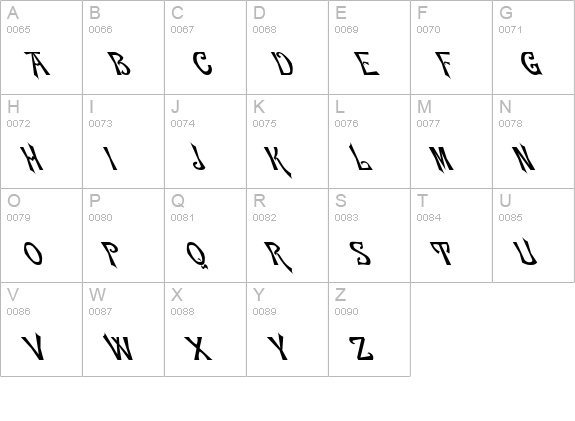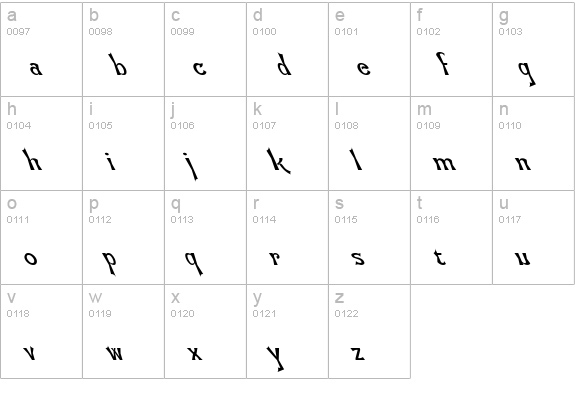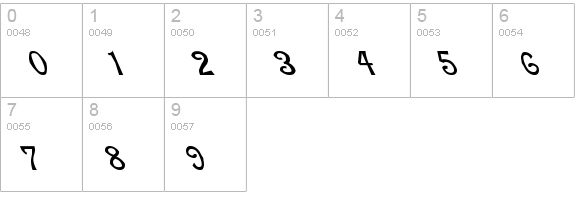
Flemish Normal Lefty is the standard, neutral variant in the Flemish typeface family \xE2\x80\x94 well suited to general body text, paragraphs, and standard typographic work.
Flemish Normal Lefty font is a unique and stylish typeface that exudes elegance and sophistication. This font features a classic Flemish style with a modern twist, making it perfect for a wide range of design projects. Its smooth curves and bold lines create a beautiful contrast that will make your text stand out. One of the best things about Flemish Normal Lefty font is that it is completely free to download. You can easily access this stunning font at FontsMarket.com and add it to your font collection without any cost. Whether you're working on a professional project or a personal creative endeavor, this font is sure to elevate your designs and leave a lasting impression. Don't miss out on the opportunity to enhance your typography with Flemish Normal Lefty font. Download it today and start creating stunning visuals that will captivate your audience.